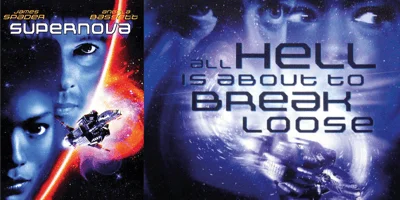
Outlander Nova Font
Outlander Nova Font is perfect for space exploration companies, futuristic sci-fi projects, interstellar travel campaigns, alien civilization gaming, cosmic adventure materials, extraterrestrial research institutes, stellar discovery documentaries, galactic tourism branding, and otherworldly social media content. This cosmic typeface brings extraterrestrial mystique and interstellar sophistication to both digital and print design applications.
Outlander Nova Font is exciting because it embodies the mysterious allure and infinite possibilities of alien worlds, making it an exceptional choice for designers who want to convey otherworldly innovation with authentic extraterrestrial appeal. Its futuristic letterforms and alien character provide the perfect combination of cosmic elegance and interstellar functionality, ensuring your projects communicate exploration, mystery, and cosmic excellence that resonates with audiences seeking genuine space experiences and extraterrestrial adventures.
The Outlander Nova Font family includes cosmic weight variations and alien elements, featuring light, regular, medium, and bold weights with complementary futuristic styles, interstellar ligatures, and extraterrestrial decorative flourishes. Each style maintains consistent cosmic aesthetics while offering flexibility for different space applications, allowing designers to create otherworldly visual systems that reflect exploration values and alien sophistication.
Whether you're designing for space brands, sci-fi entertainment companies, or cosmic exploration projects, Outlander Nova Font delivers authentic extraterrestrial appeal and cosmic sophistication that connects with audiences seeking genuine space experiences and interstellar excellence. This premium typeface offers designers the alien elegance and cosmic charm needed to create designs that communicate space exploration, extraterrestrial mystery, and cosmic authenticity effectively. The font's otherworldly character makes it perfect for space branding, cosmic campaigns, and alien applications where authentic extraterrestrial credibility is essential. Download Outlander Nova Font today and explore your creative projects with genuine cosmic sophistication and alien typography excellence that defines space design standards.